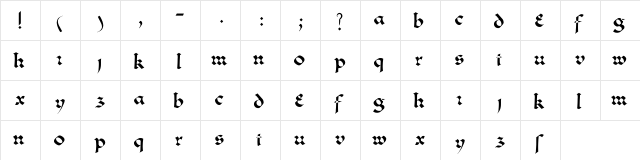
Greenowi Regular
Design Context for Greenowi Typeface
Greenowi is a composed and adaptable typeface that performs quietly and consistently across a wide range of design contexts.